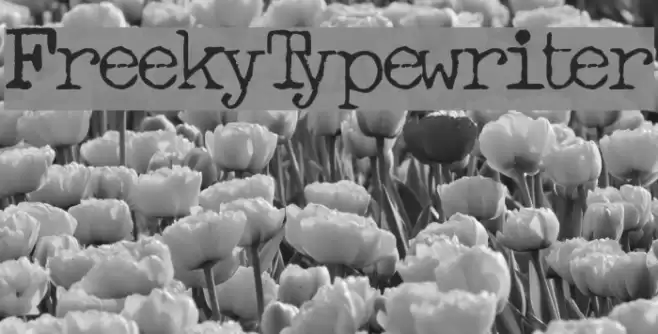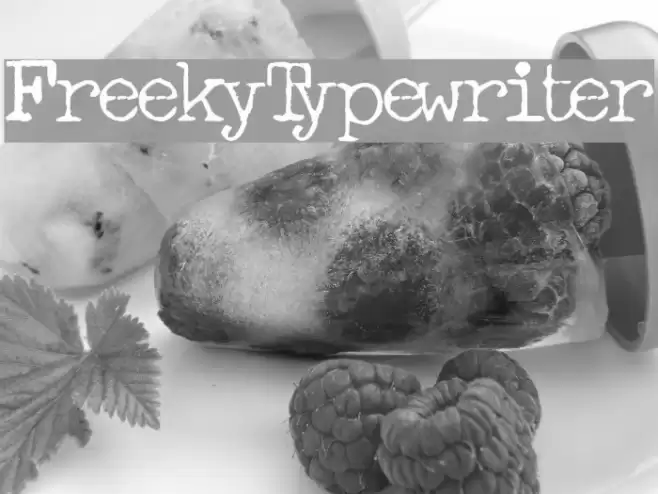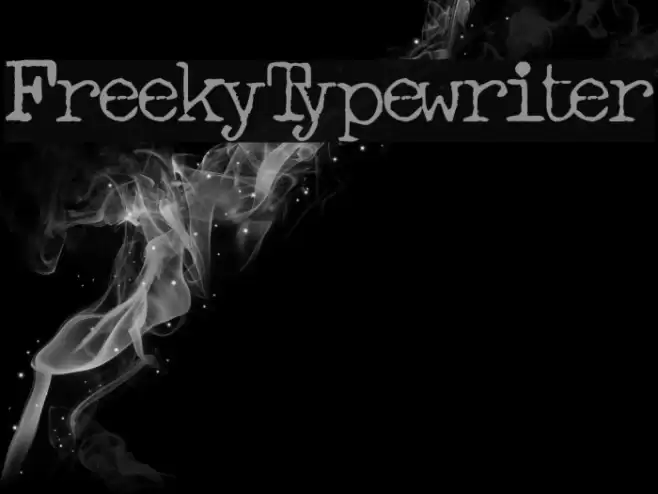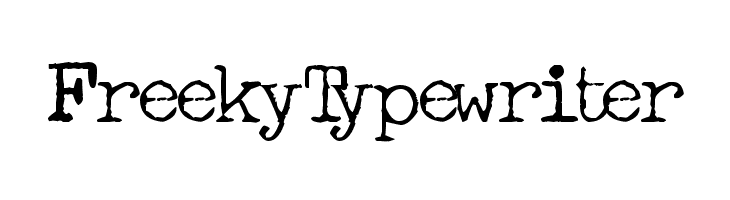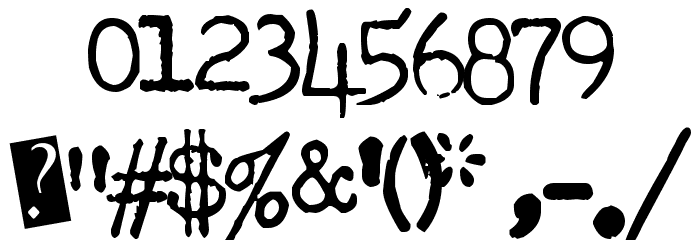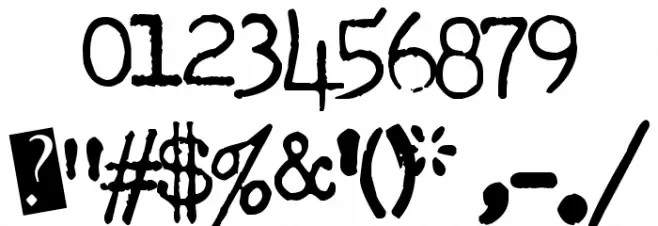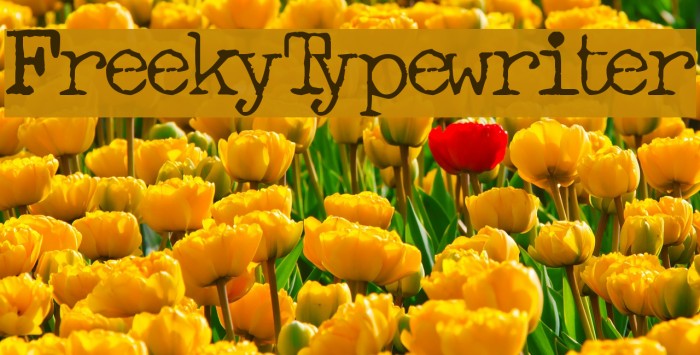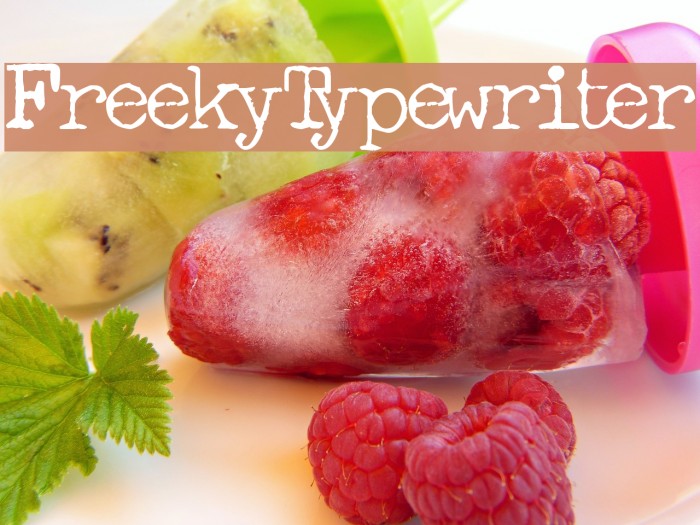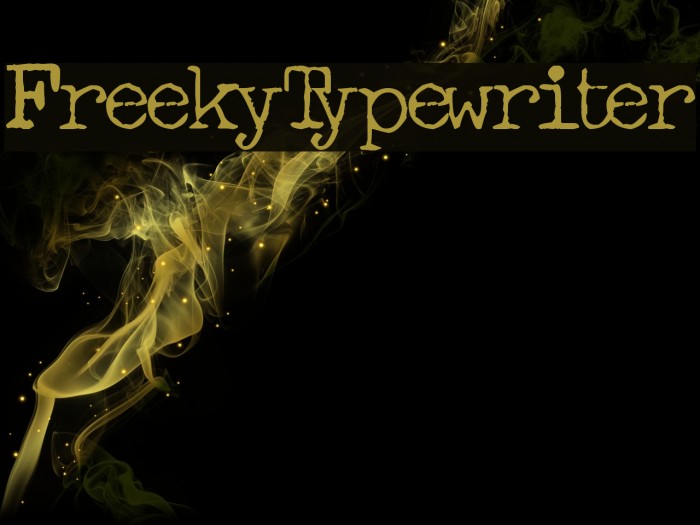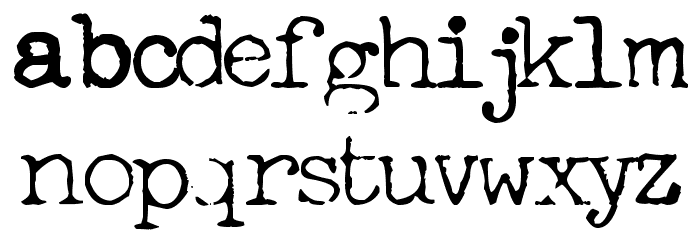
FreekyTypewriter Font
FreekyTypewriter Description
This font exudes a vintage typewriter aesthetic with a distressed and grungy texture. The characters are bold and slightly irregular, mimicking the look of ink smudges and worn-out typewriter keys. The uppercase and lowercase letters maintain a consistent style, with rounded edges and varying stroke widths that add to the authentic, old-school feel. Numbers and special characters follow the same design, providing a cohesive look across all elements. The font's unique style makes it ideal for projects that require a retro or industrial vibe.
A vintage typewriter-style font with a distressed, grungy texture from Uncategorized fonts.
- Proposed Projects: Ideal for retro-themed designs, posters, book covers, and branding that requires a vintage or industrial look.
- Overall Style: Vintage